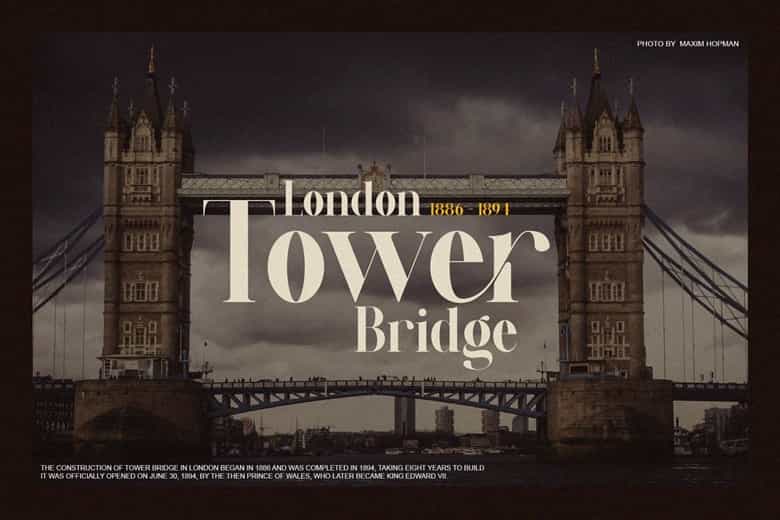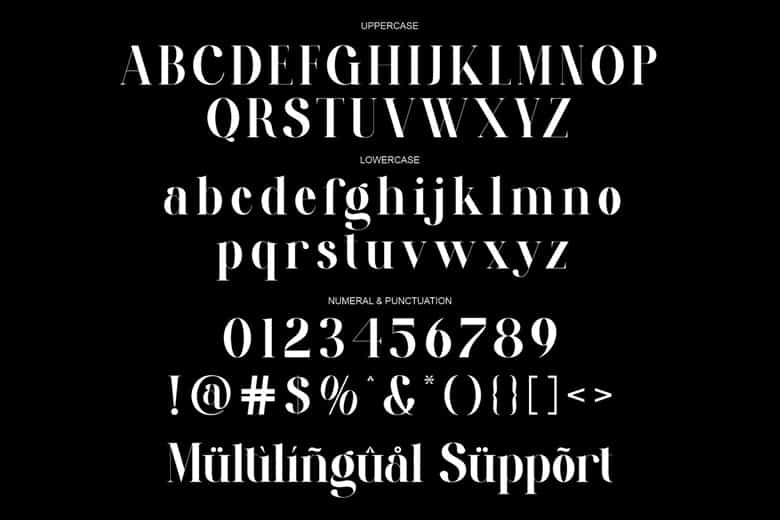
Voglue is a modern serif font, which convey the notion of fresh flowers and classic sophistication. It is Silky and elegant font with prominent yet delicate conjunctions; Milcora is best described as a womanish typeface. Best for elegant designs, for use in floral, fashion, or luxury branding,